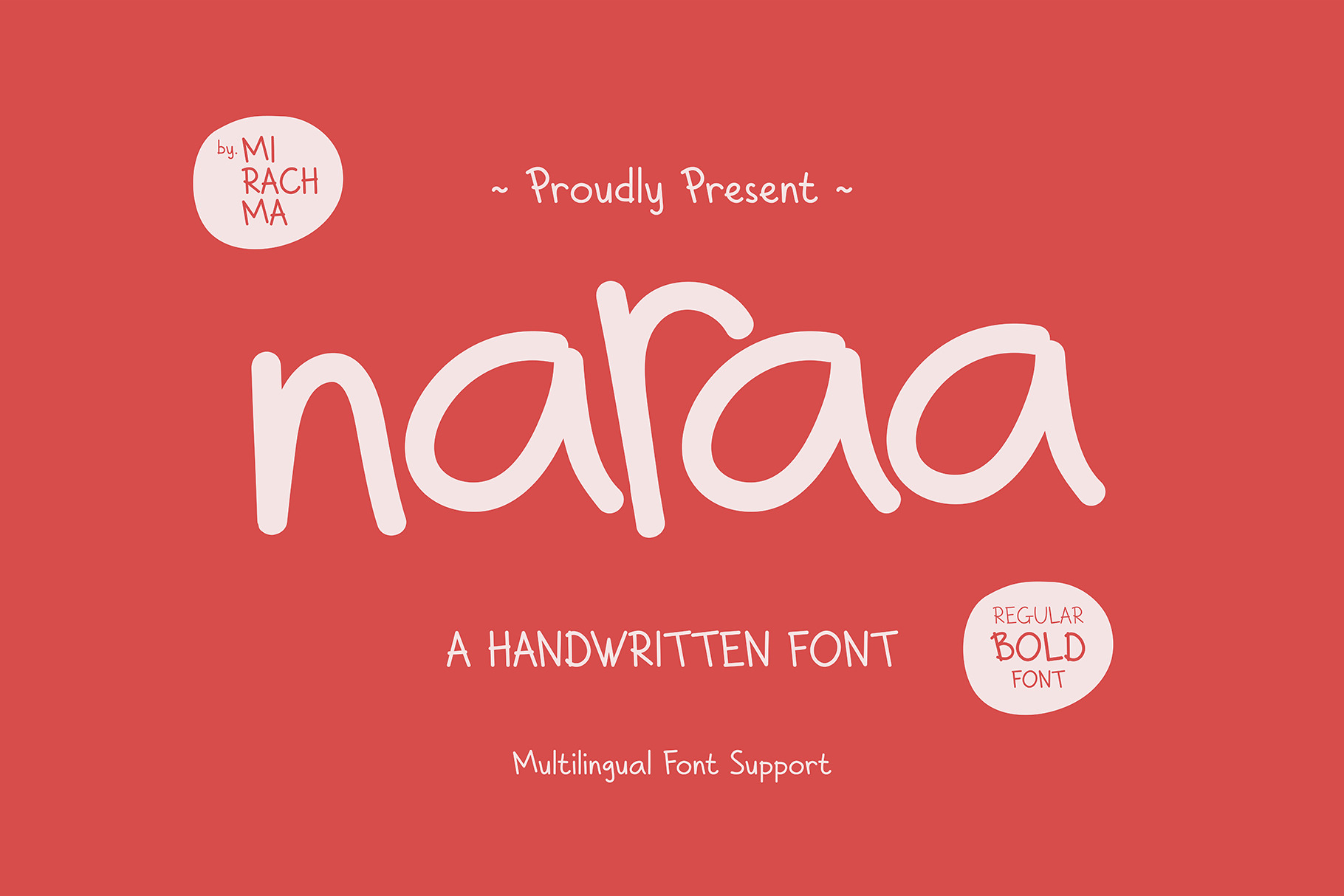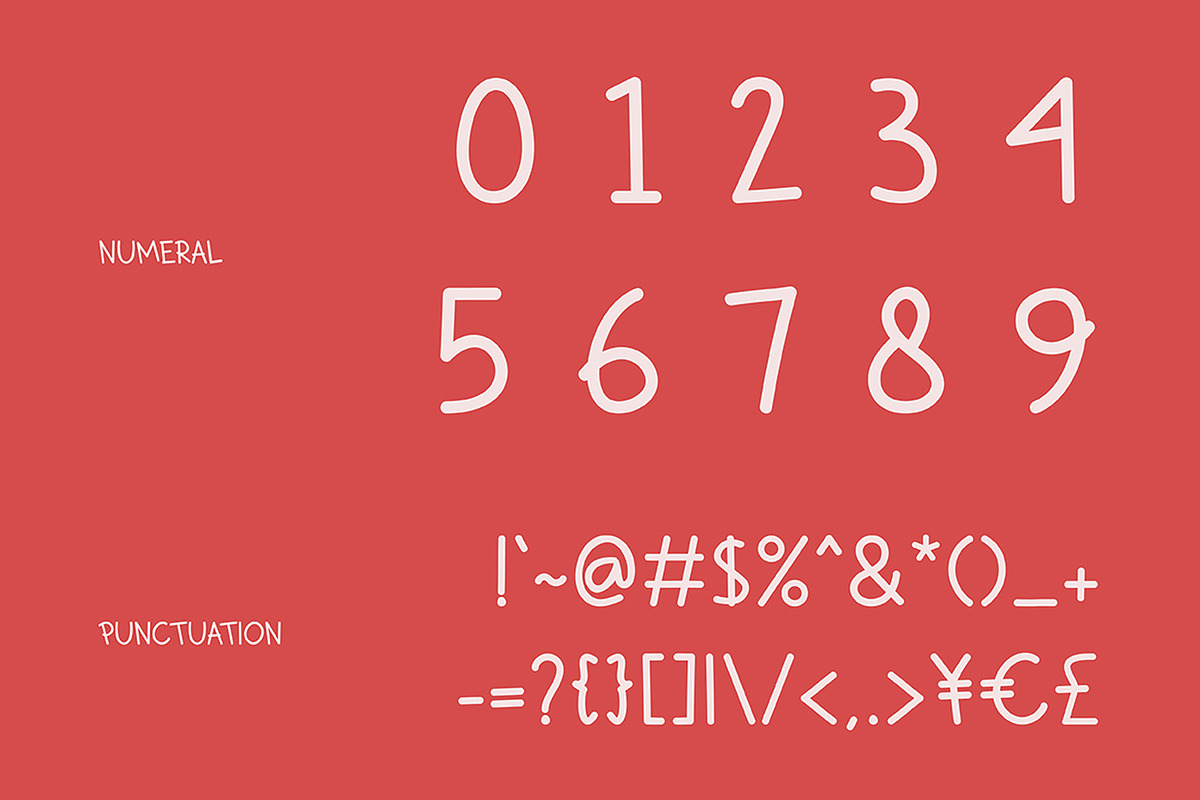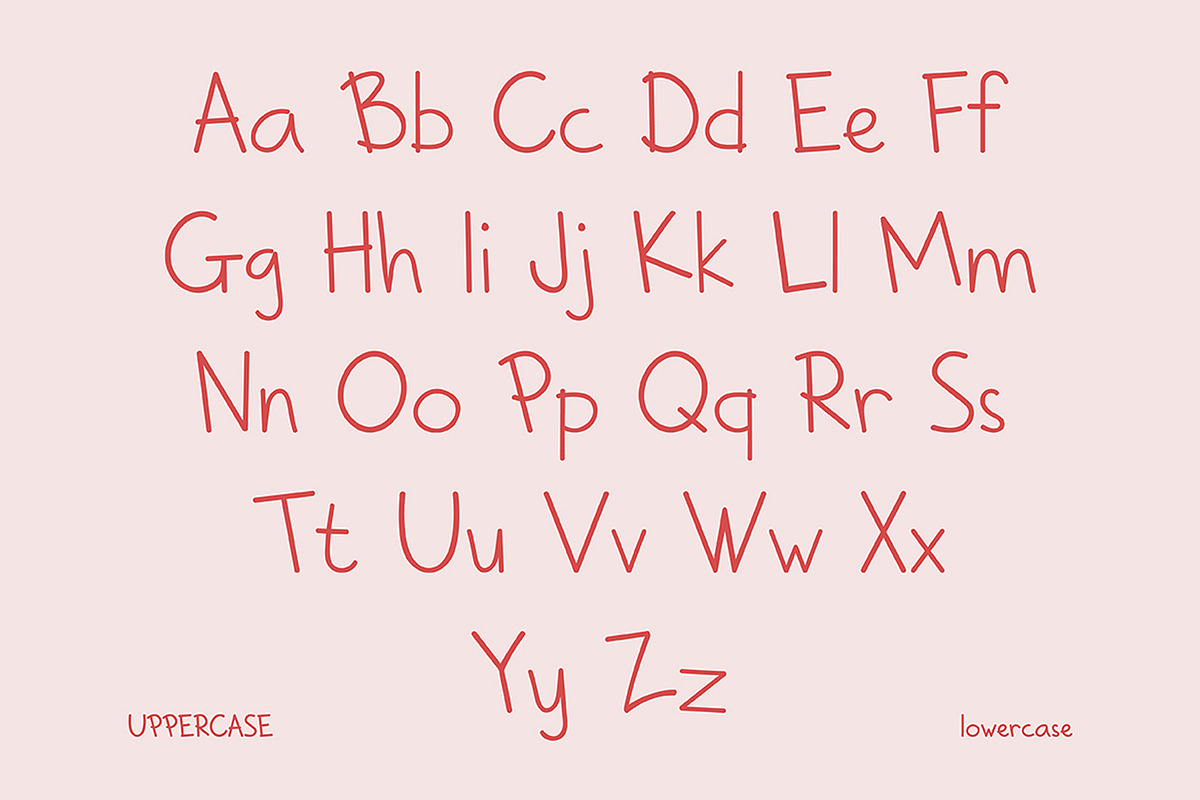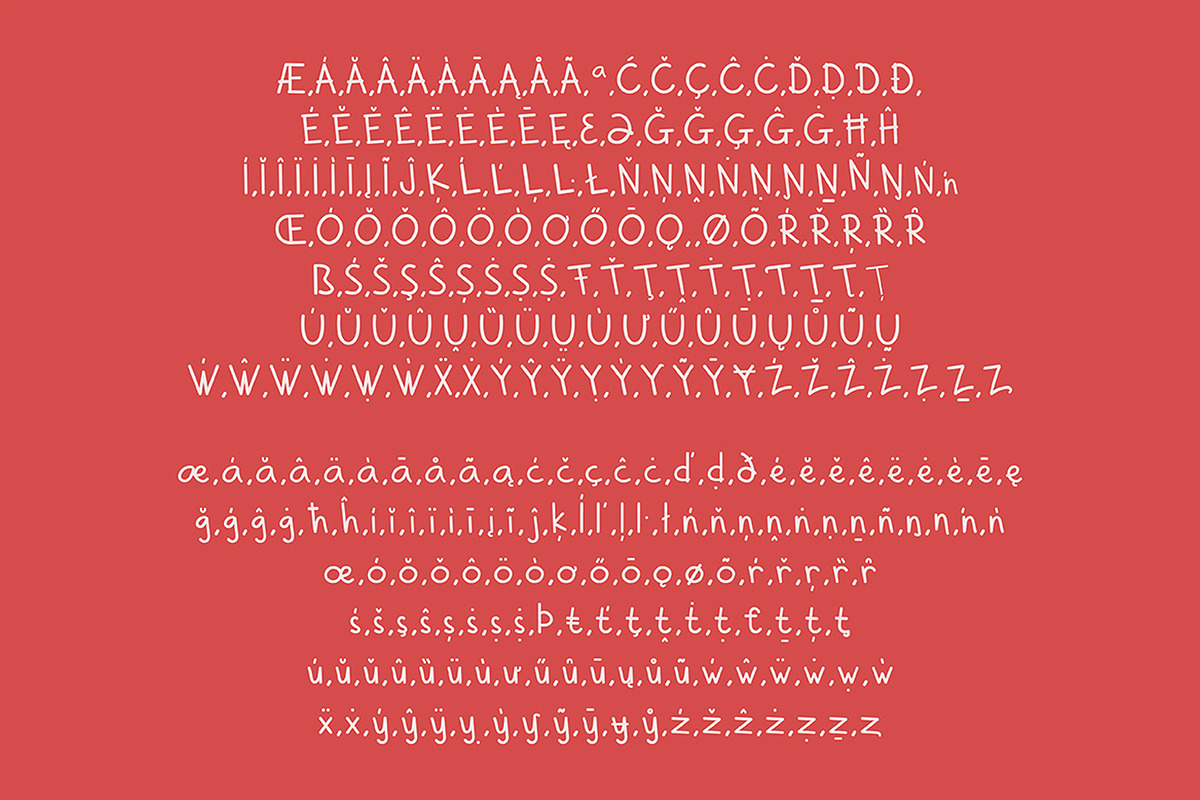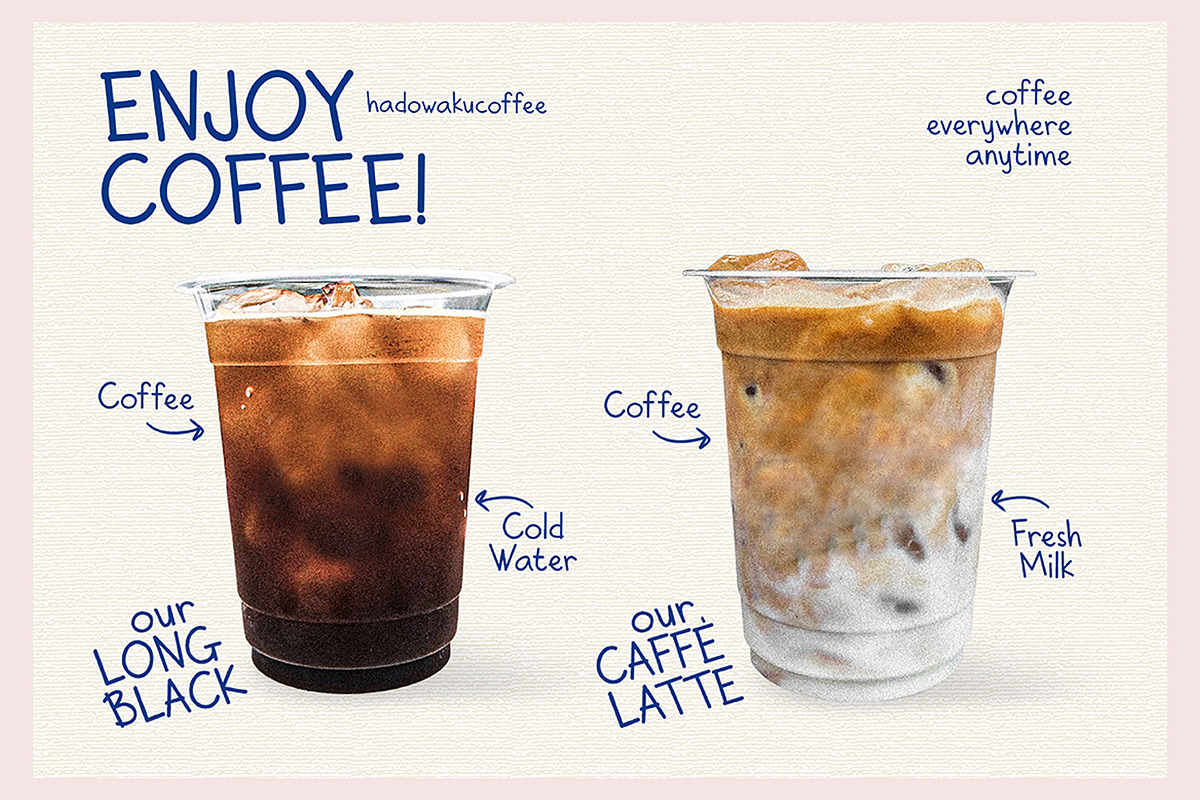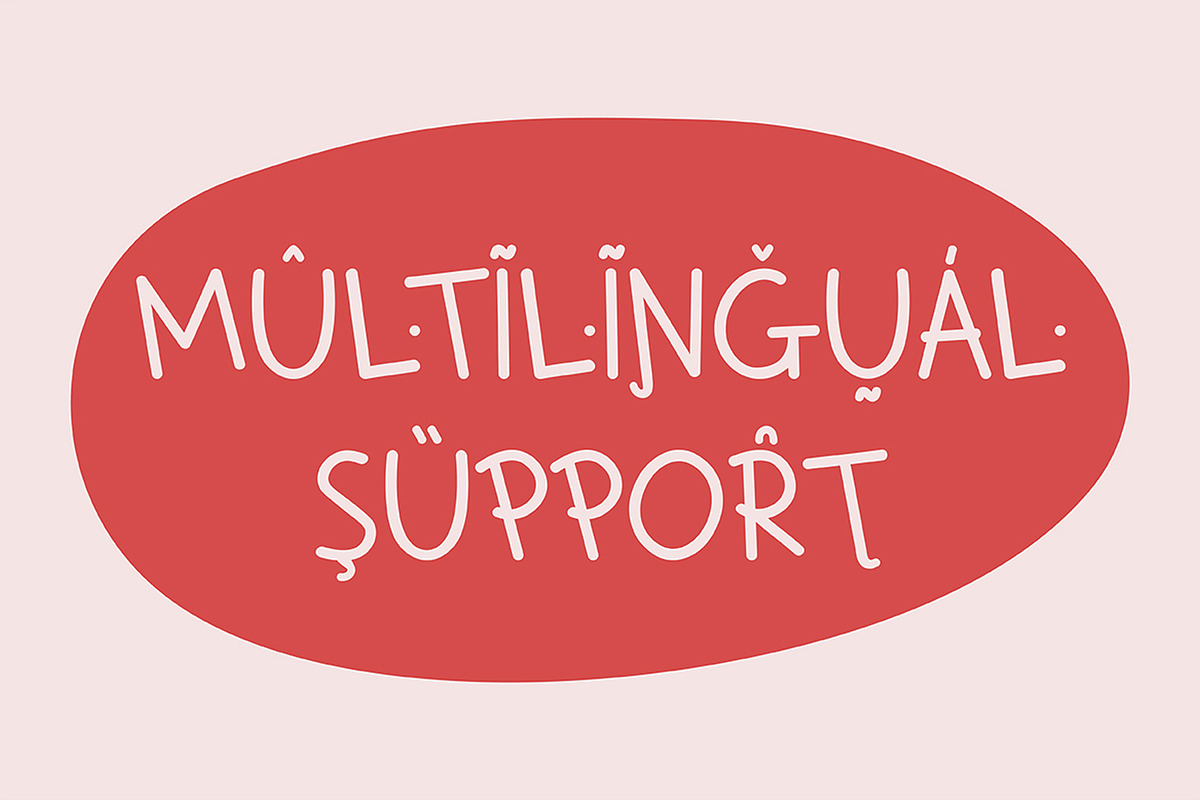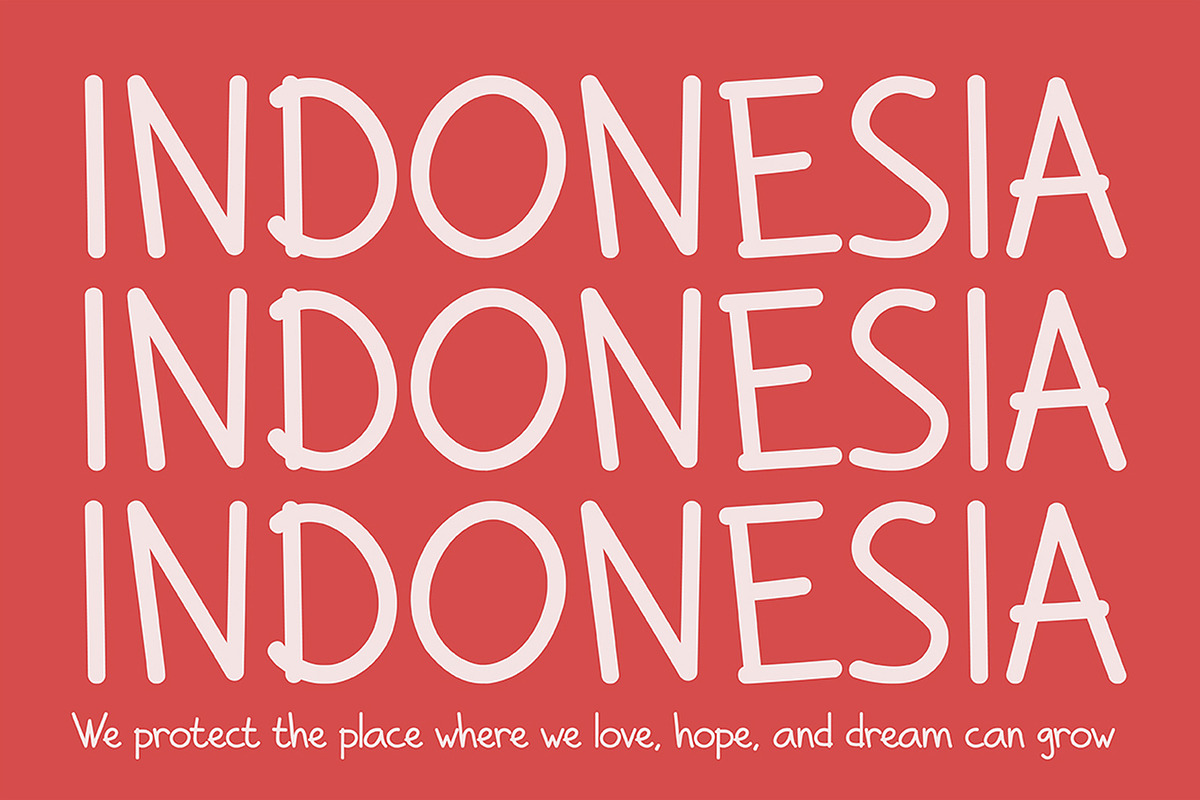
Naraa - Handwritten Font
Naraa Font is the first font I created. It was made with joy, warmth, and deep love. This font was created with natural handwriting. It looks relaxed and light, so it will look attractive when used for greeting cards, branding materials (coffee shops, fashion, traveling, etc.), quotes, posters, wedding invitations, and more.
- Uppercase & Lowercase Alphabets